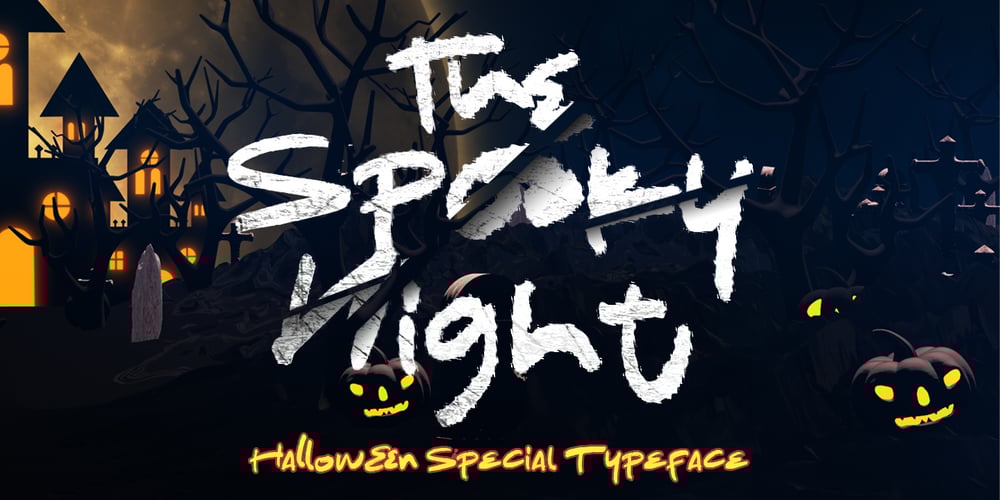
The Spooky Night Font Family was designed by Agung Eko Nugroho and published by AEN Creative Studio. The Spooky Night contains 1 styles and family package options. The Spooky Night is an incredibly unique and interesting display font. Add it to your creative Halloween themed ideas and notice how it will make them stand out! The only limit is your imagination!